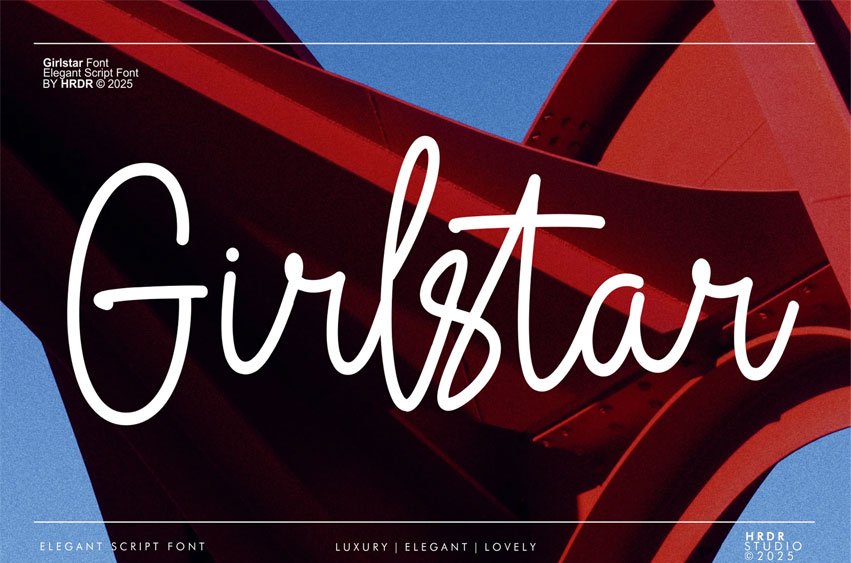
Girlstar Font is an Elegant script font with a simple style. Girlstar is perfect for crafting, branding, invitations, stationery, wedding designs, social media posts, advertisements, product packaging, product designs, labels, Posters, photography, special events, or anything.
- Stylistic Alternates with Ss01 & Ss02